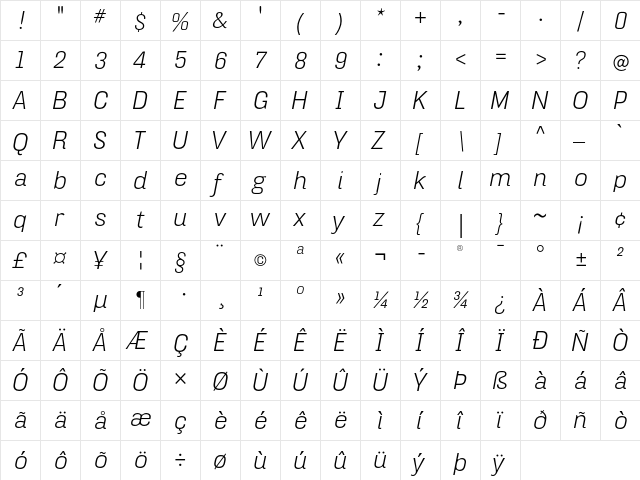
HydraText-LightItalic Regular
Design Context for HydraText-LightItalic Typeface
HydraText-LightItalic is a composed and adaptable typeface that performs quietly and consistently across a wide range of design contexts. The slanted form adds forward momentum and visual energy. The delicate stroke weight brings airiness and refinement to layouts.
Pro Tip: Use HydraText-LightItalic for emphasis, pull quotes, and subheadings where its slanted energy can add rhythm to the layout.